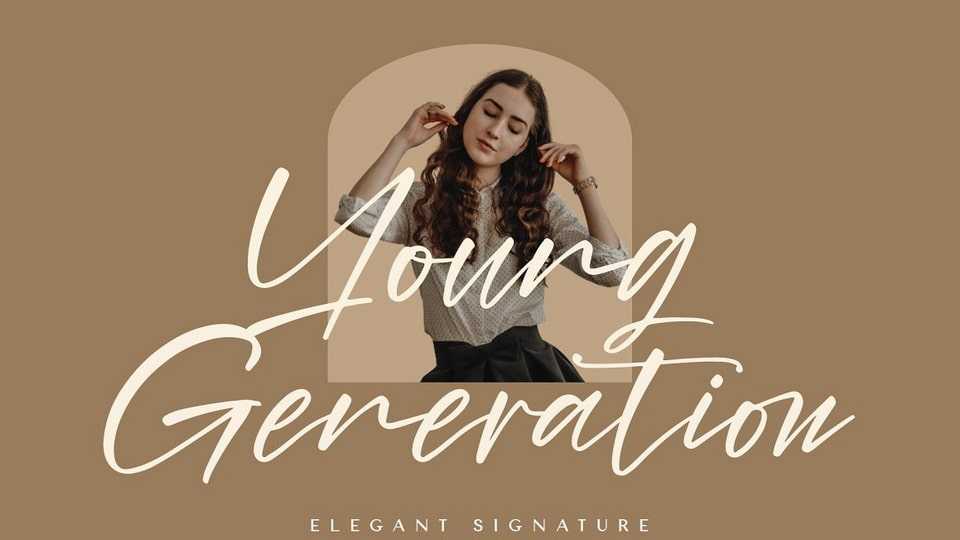
Download Young Generation font, a stylish signature typeface. The shape is modern and unique of Young Generation and the writing style is very natural.
Designer: Wildan Type